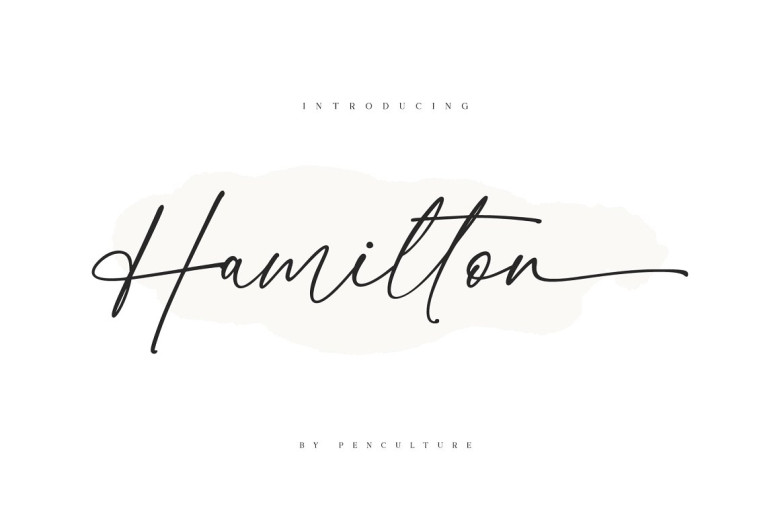
Hamilton Font
Hamilton is a modern classy calligraphy with nice looking ligature and alternative letters. Hamilton has a very nice flow which is suitable if used to write out wedding projects or invitations fashion articles, advertisements etc.
Hamilton Calligraphy Script Font